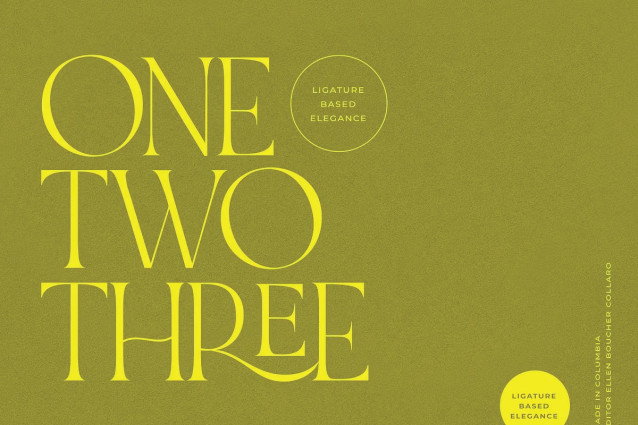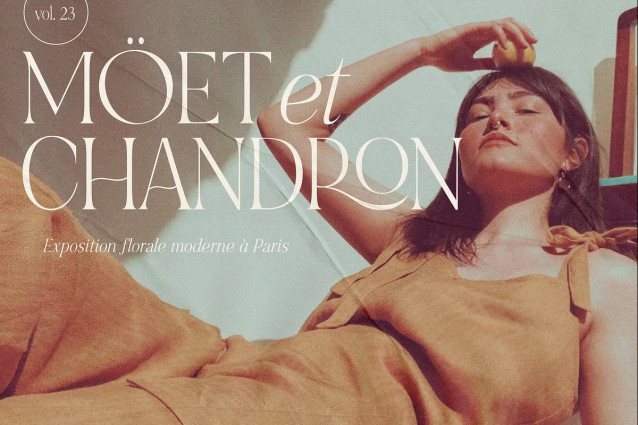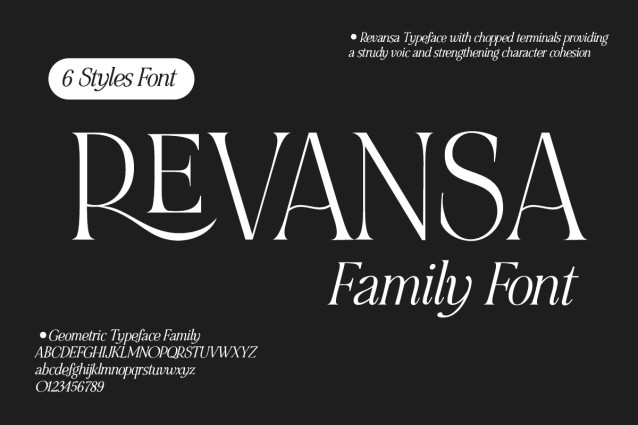
Revansa Font
Revansa font. This font would be perfect for photography, watermarks, social media posts, advertisements, logos & branding, invitations, product design, labels, stationery, product packaging, special events, and other projects.